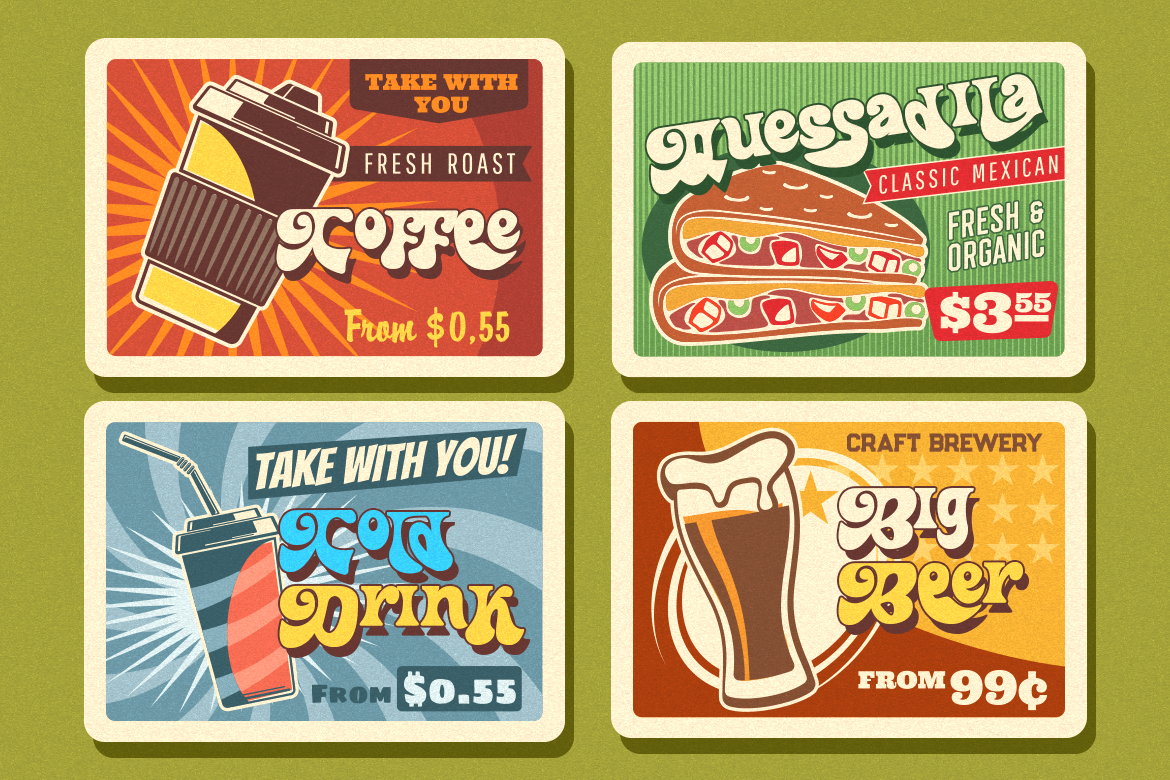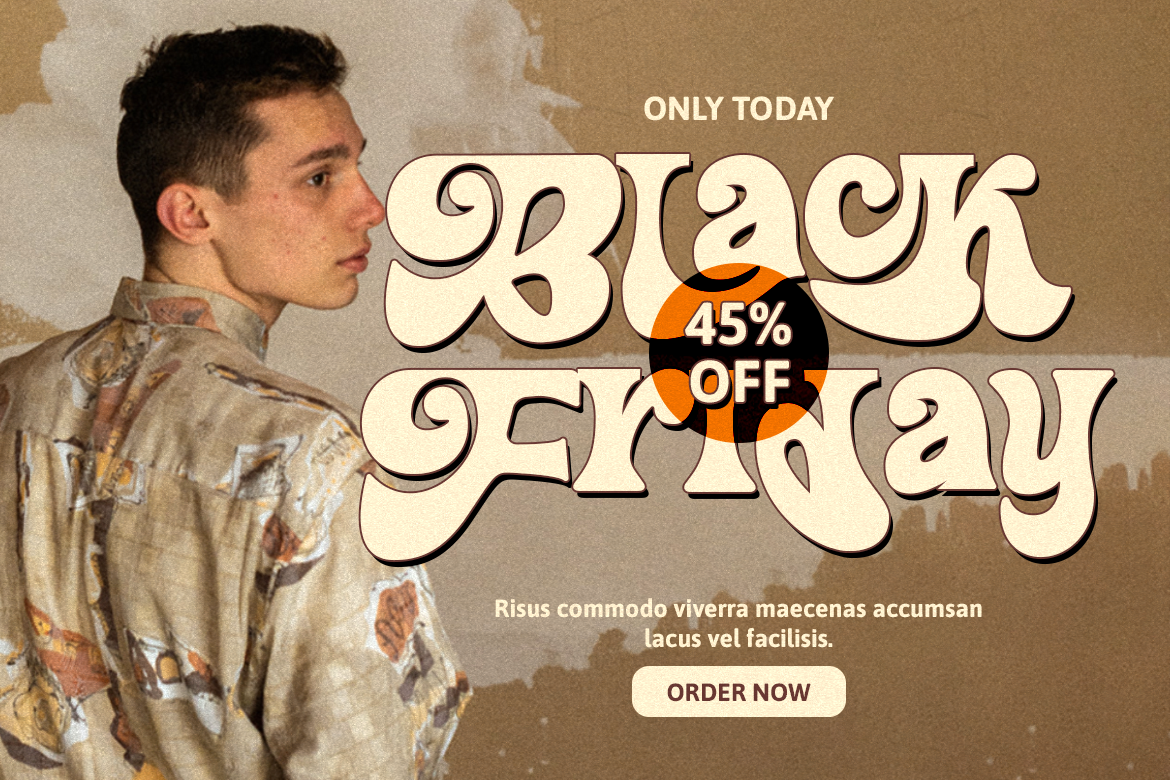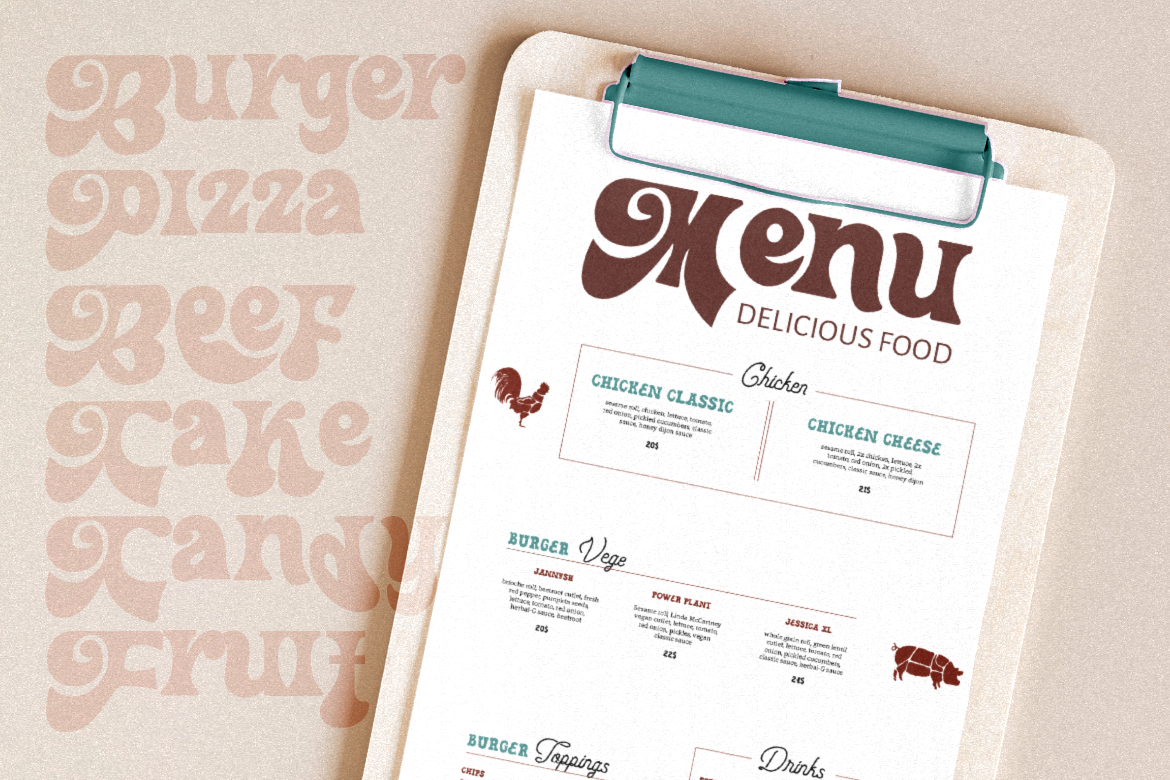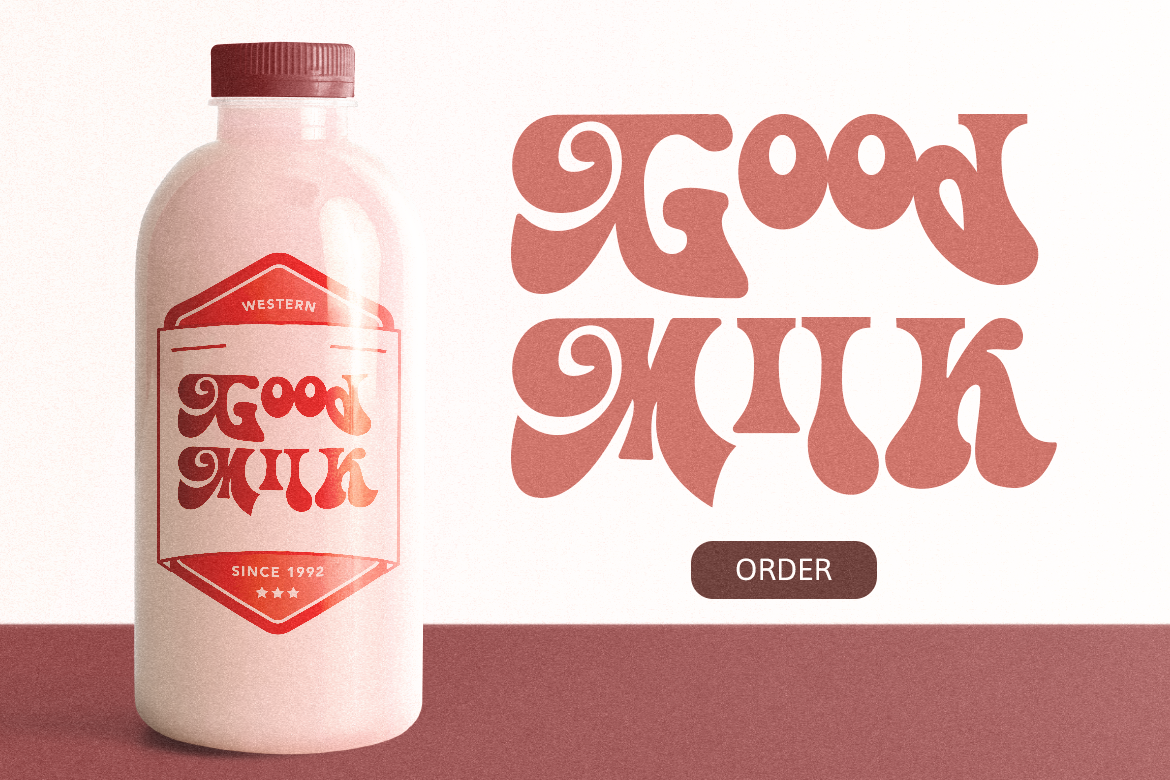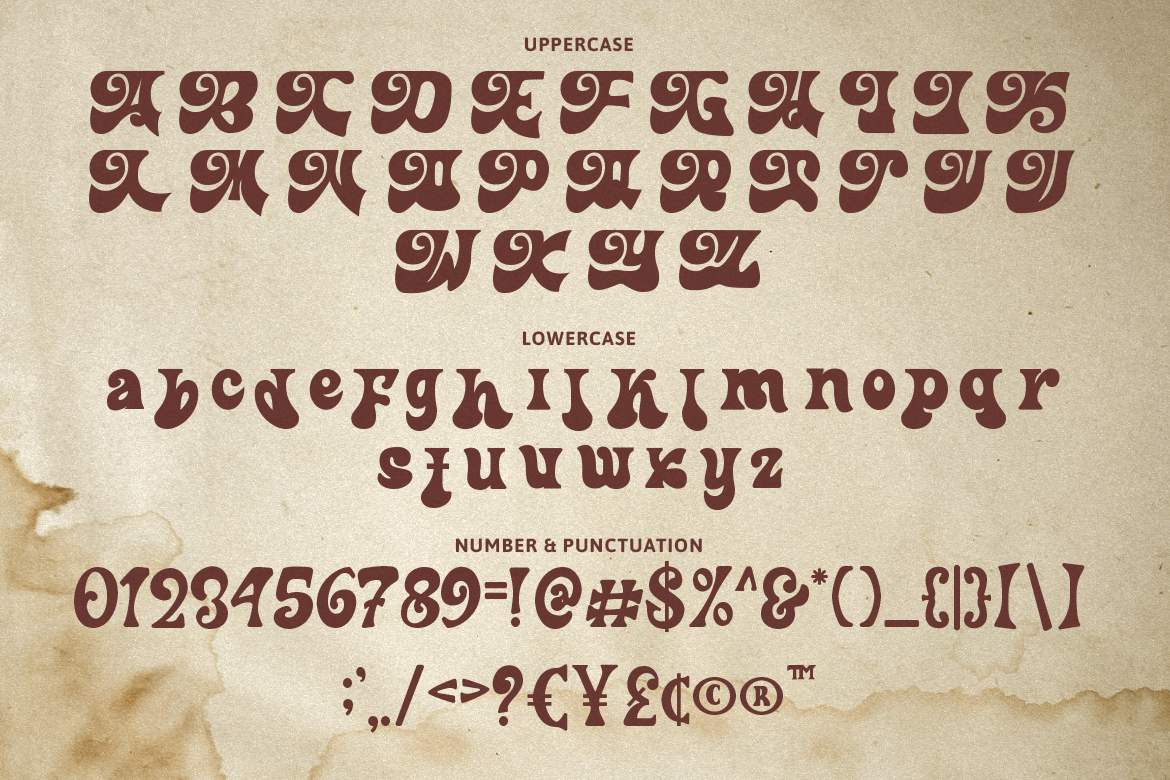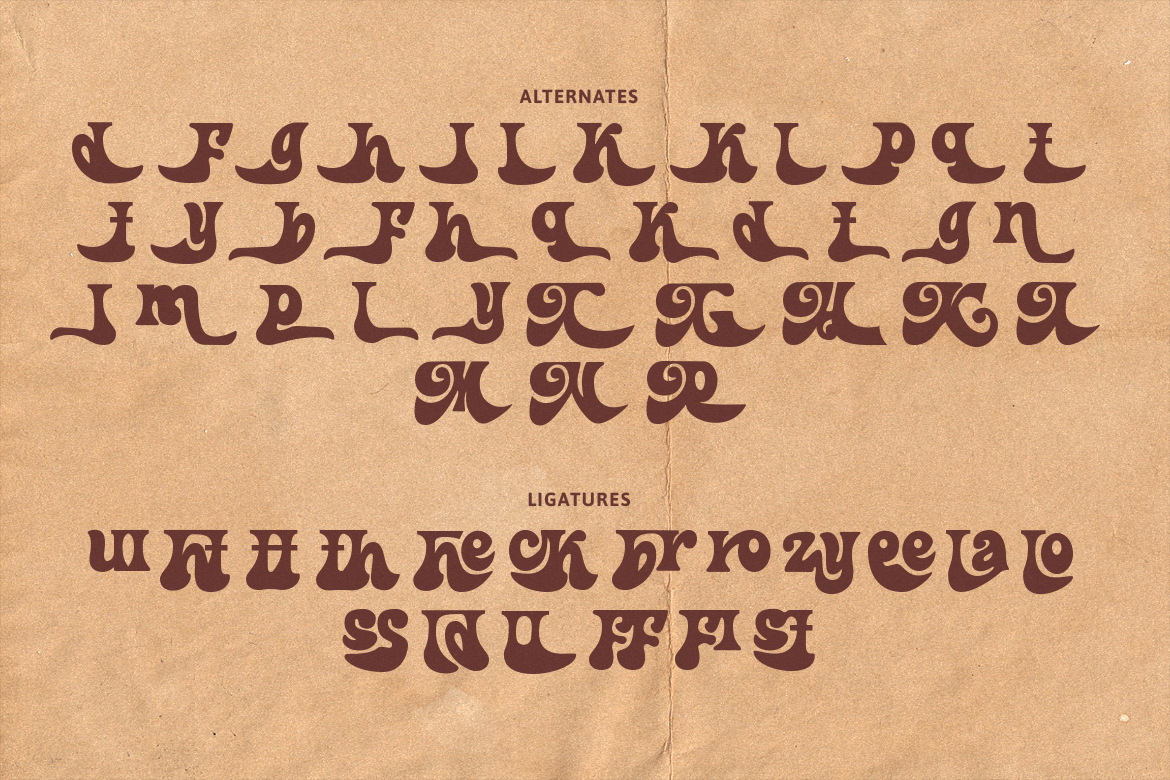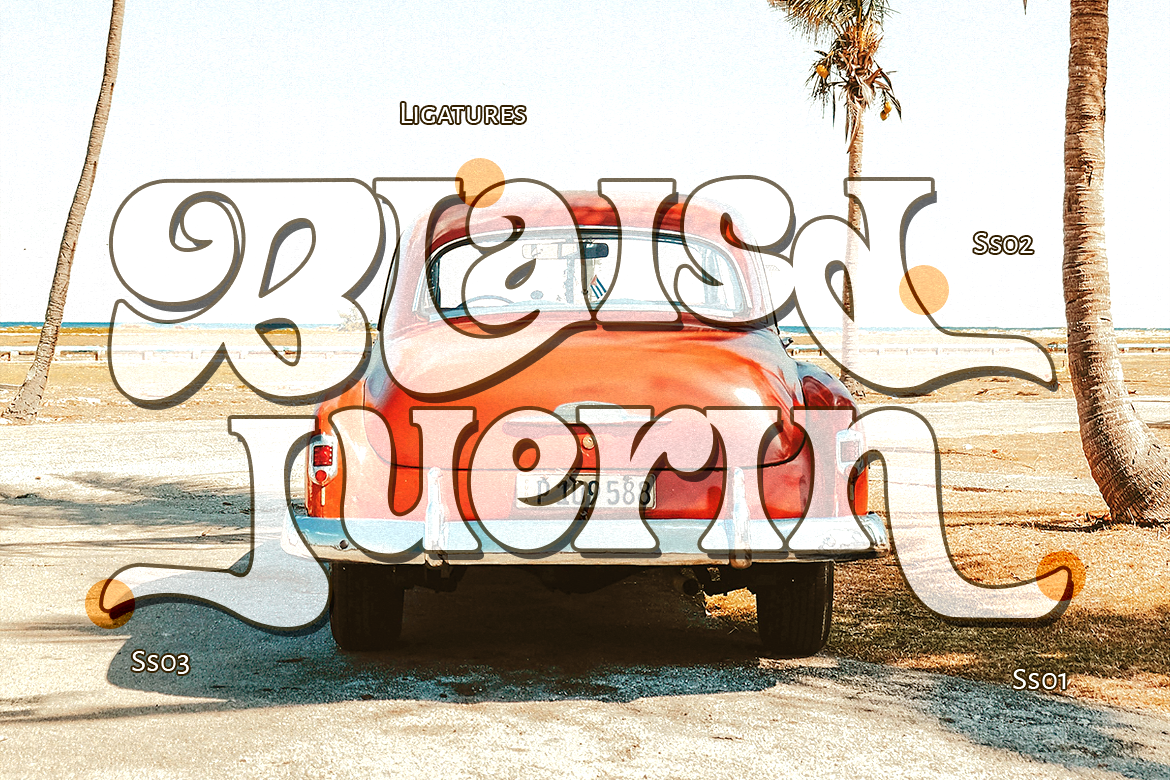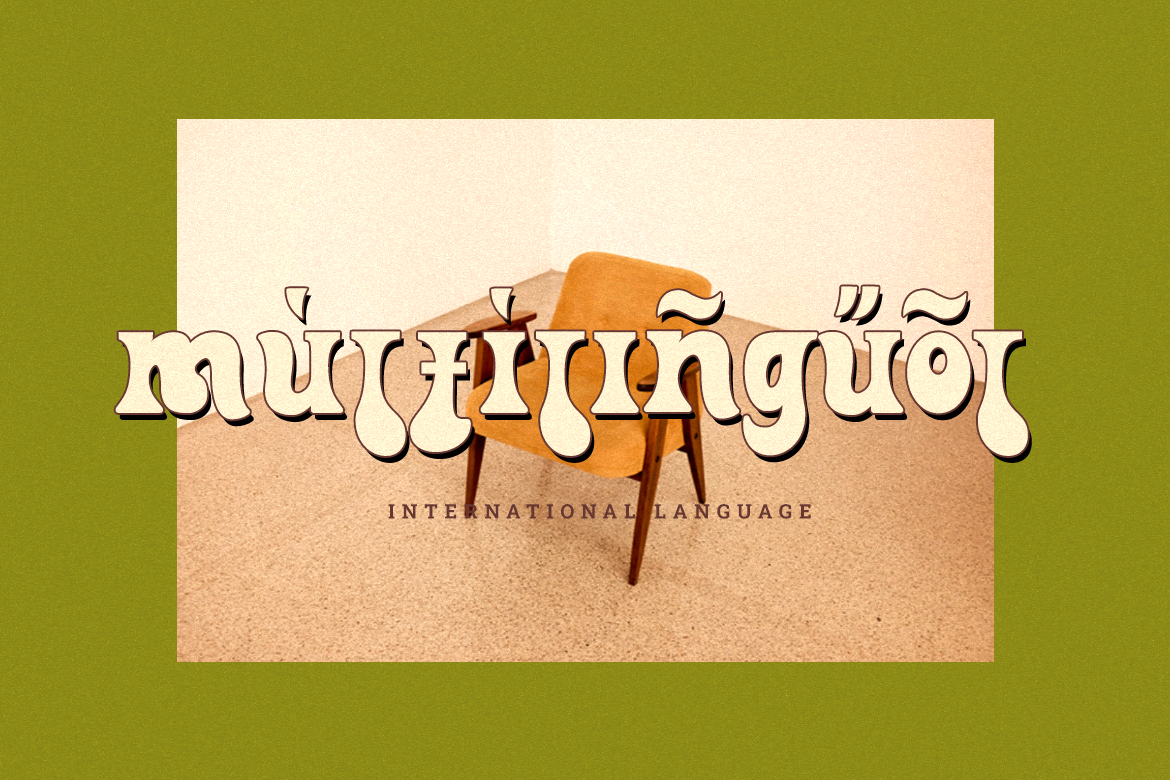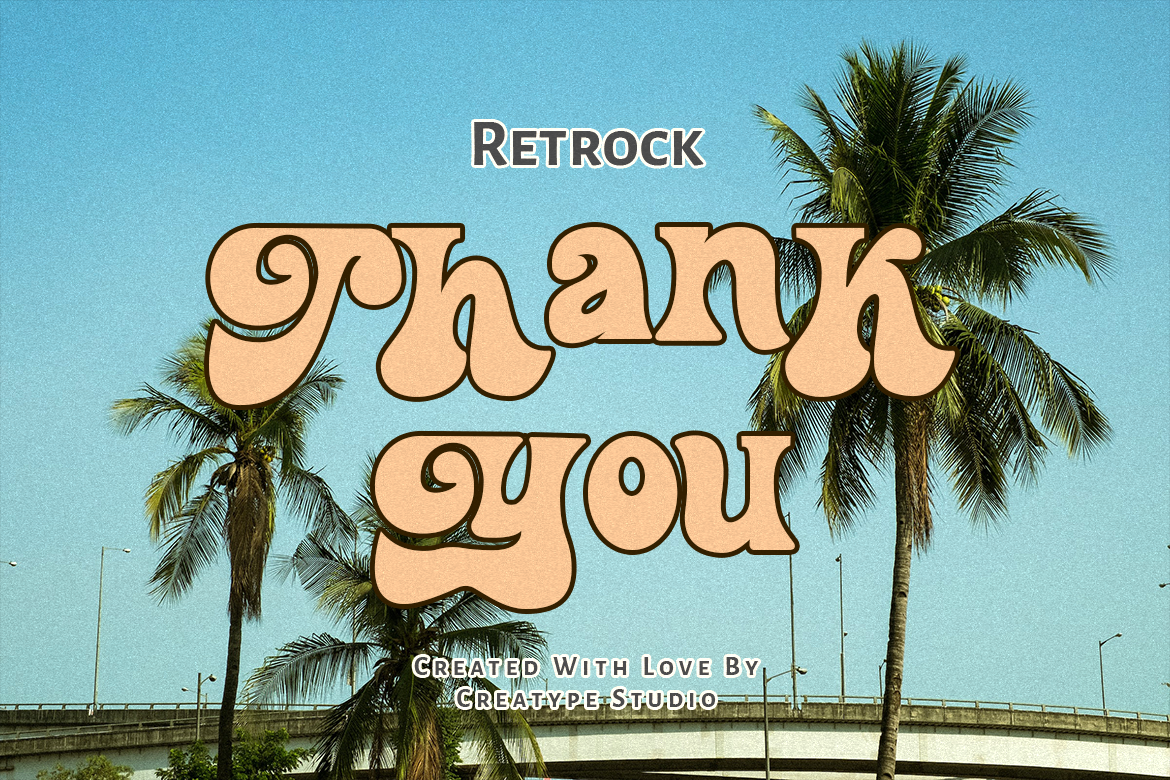
Retrock Vintage Curly
ibnu rasikh
An unregular retro typeface that has groovy vibes. Curvy and spread tails could make Retrock suitable for many retro branding styles as well.
Retrock is perfect for branding projects, logo, wedding designs, social media posts, advertisements, product packaging, product designs, label, photography, watermark, invitation, stationery and any projects that need handwriting taste.
- Ton of glyphs
- Ligature & Alternate